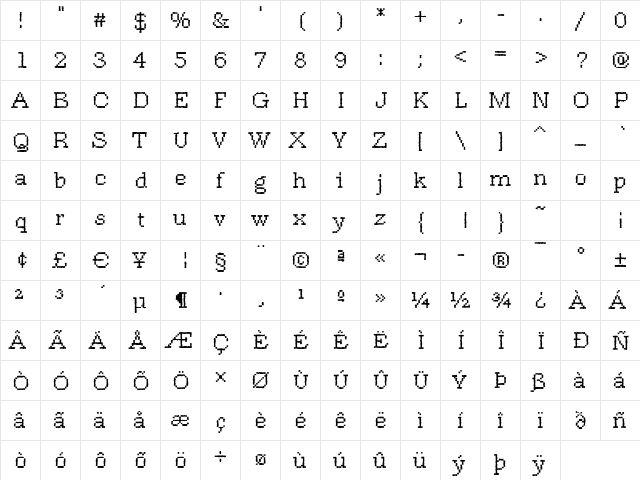
Rough17 Bold
Design Context for Rough17 Typeface
Rough17 embraces imperfection — its rough, textured character adds raw authenticity to designs that want to feel lived-in and unconventional.
Suited to punk-influenced zines, underground music branding, streetwear, and raw, anti-corporate design.